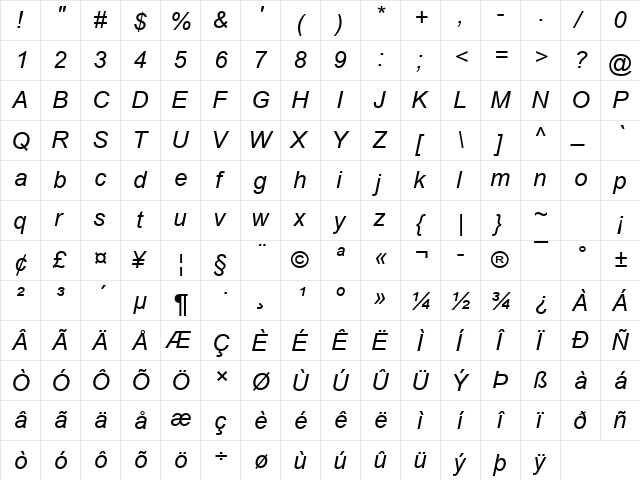
Arial Italic Font Preview
Arial Italic
Design Context for Arial Typeface
Arial is a composed and adaptable typeface that performs quietly and consistently across a wide range of design contexts. The slanted form adds forward momentum and visual energy.
Pro Tip: Try Arial for annotation and caption copy alongside an upright companion — the contrast in angle creates a dynamic but ordered typographic system.